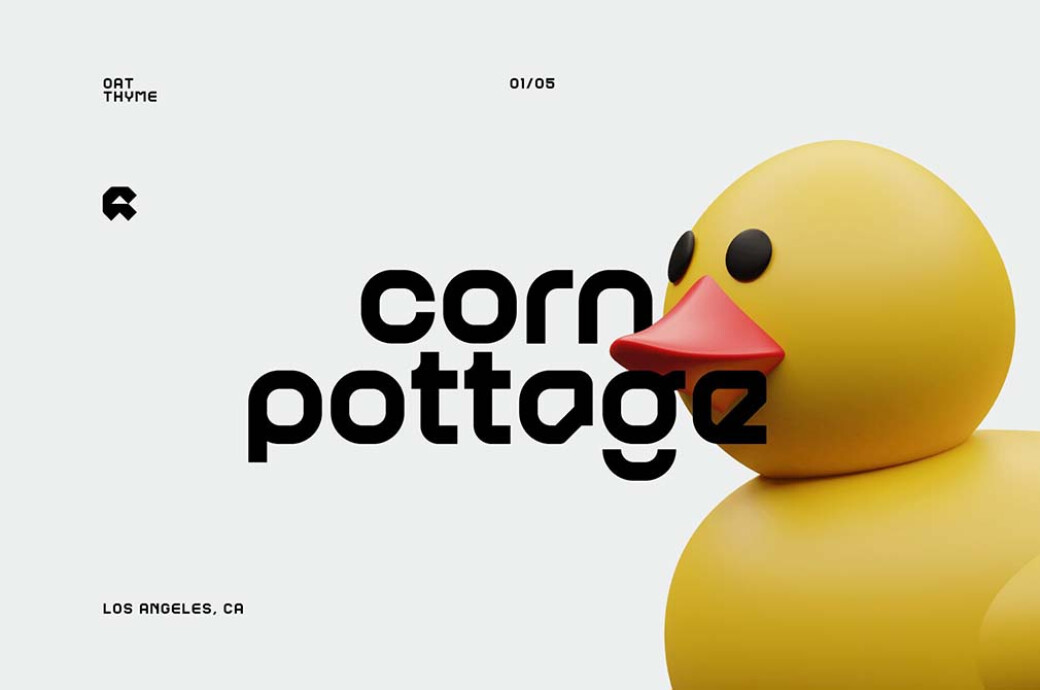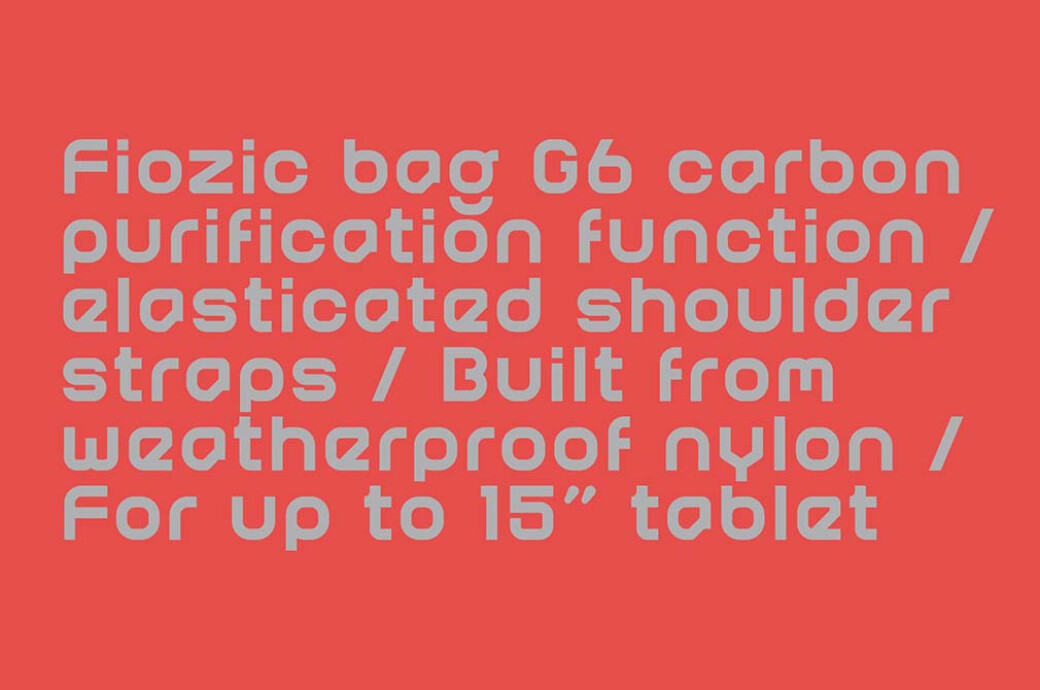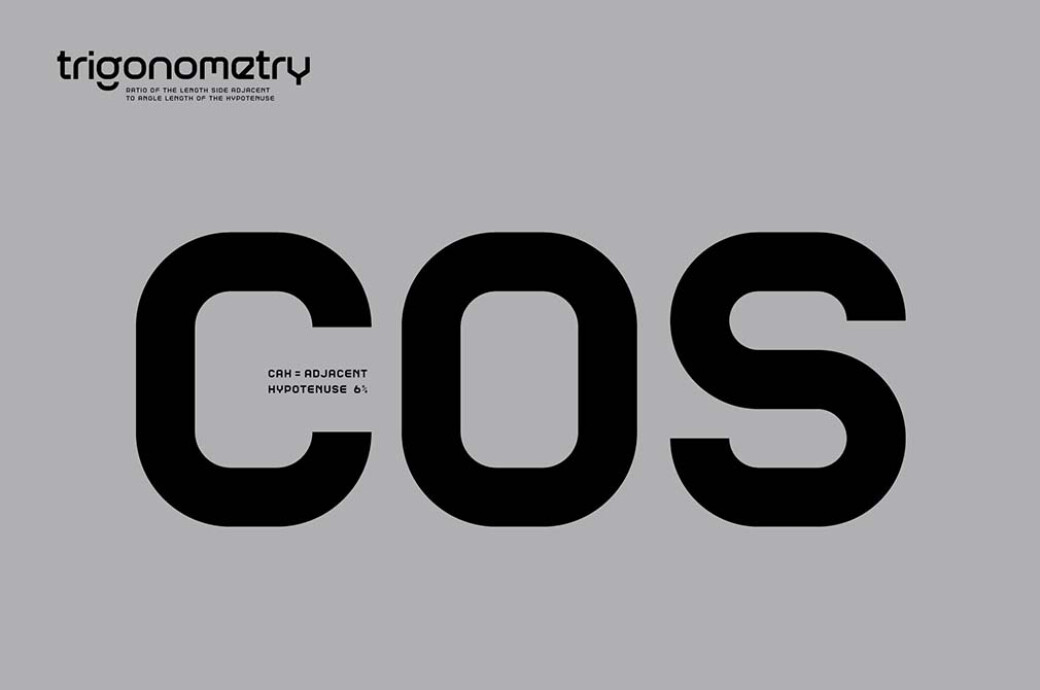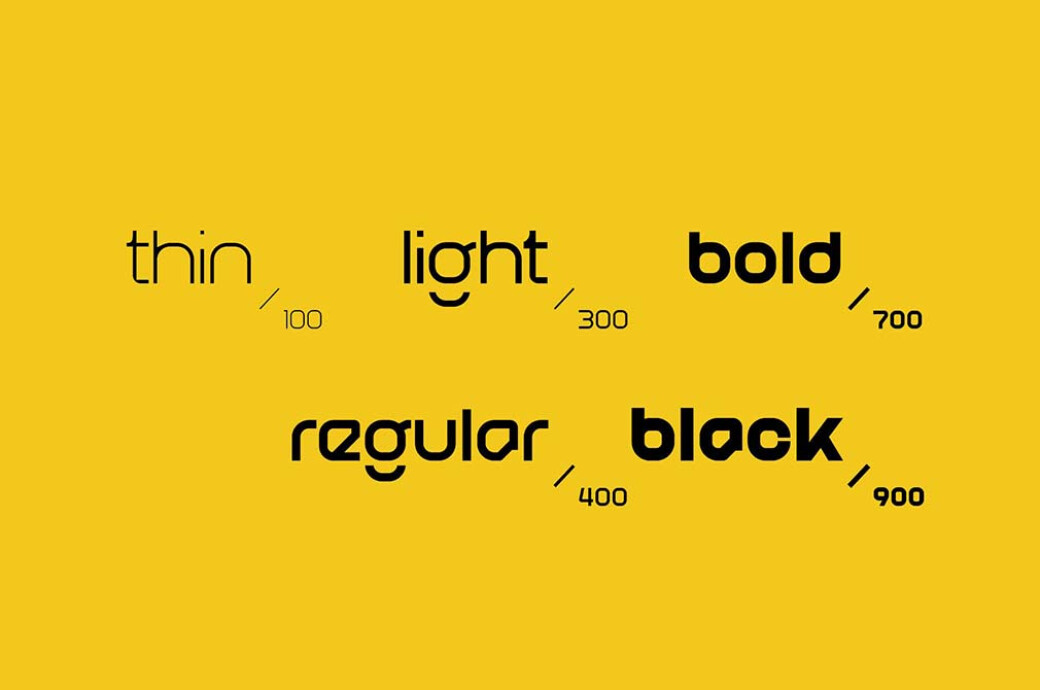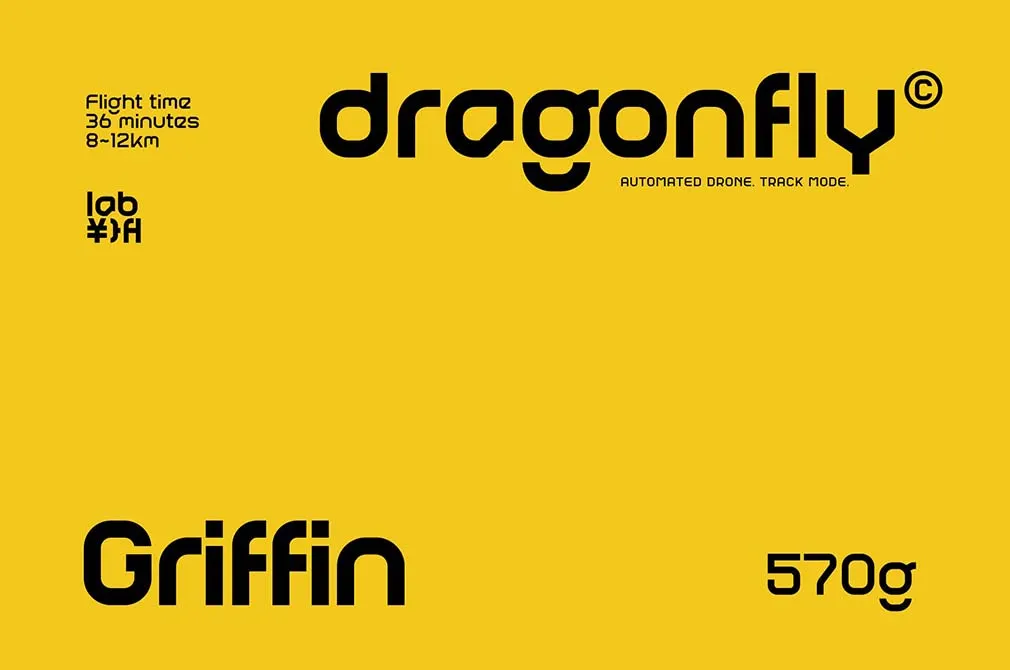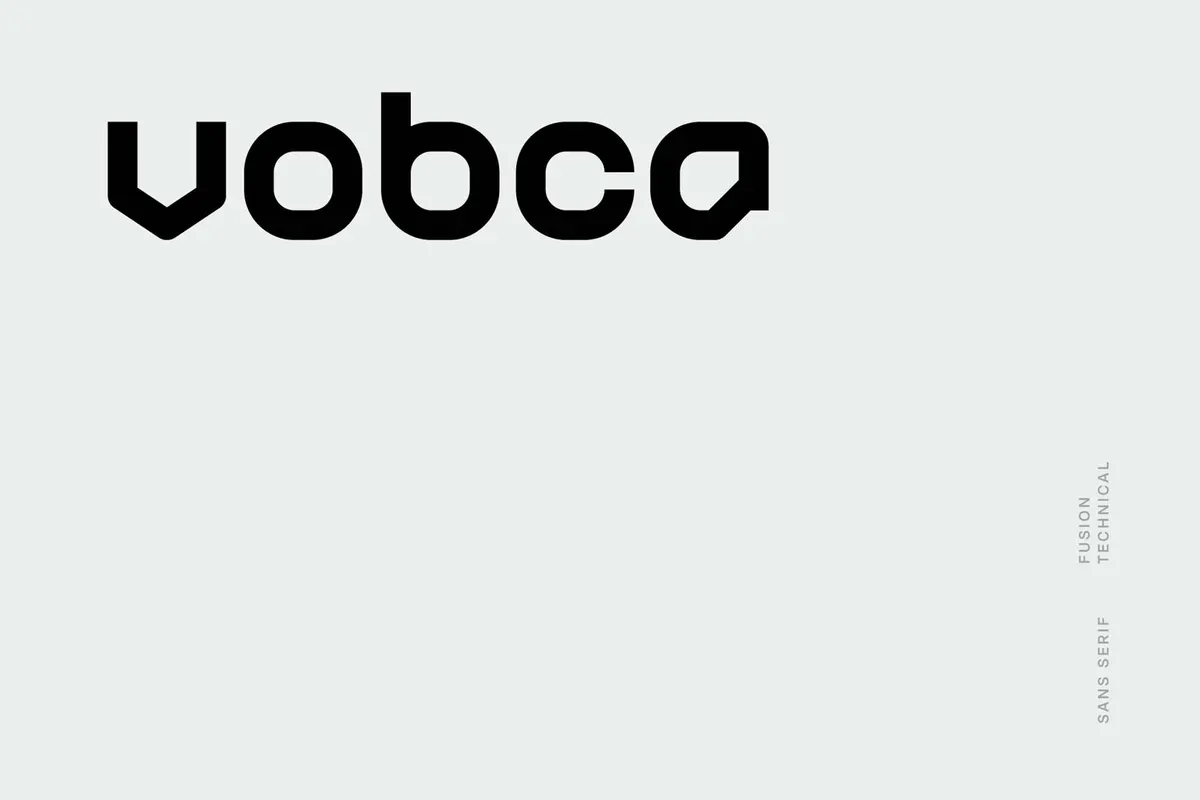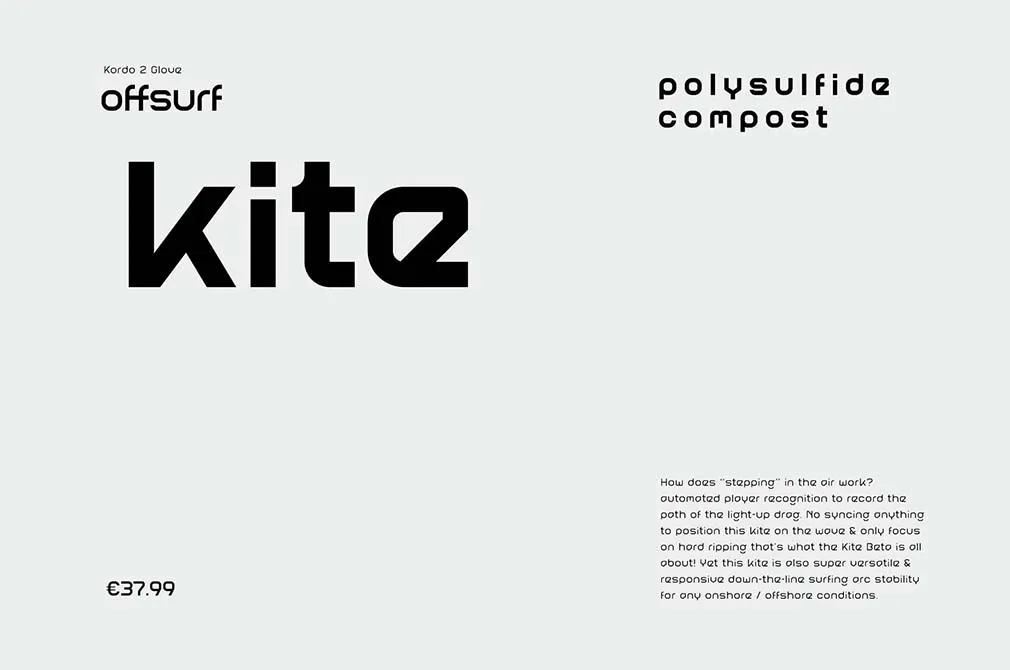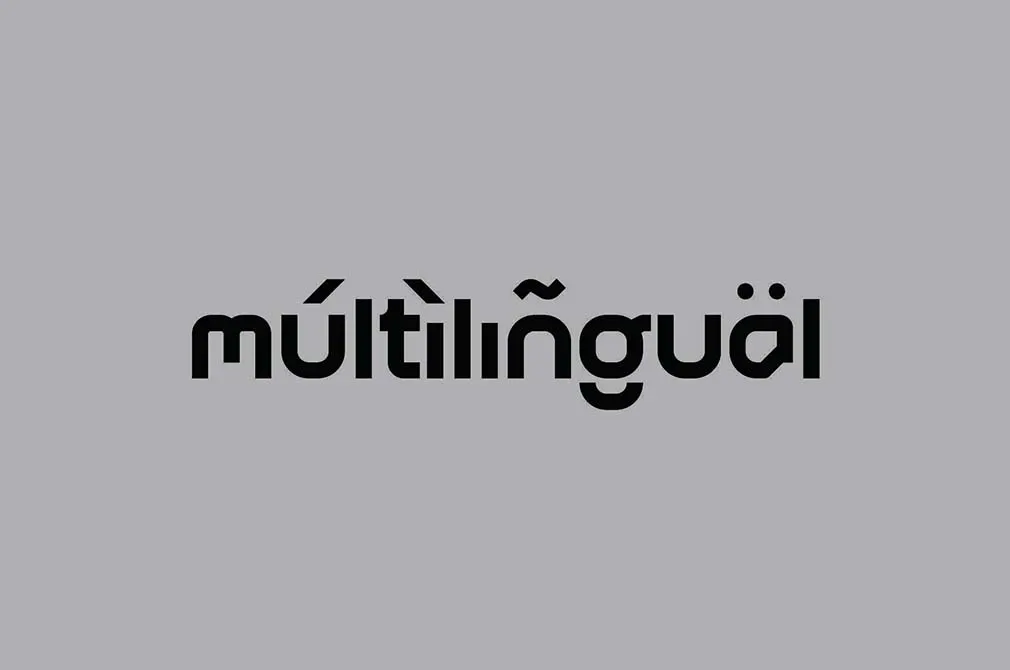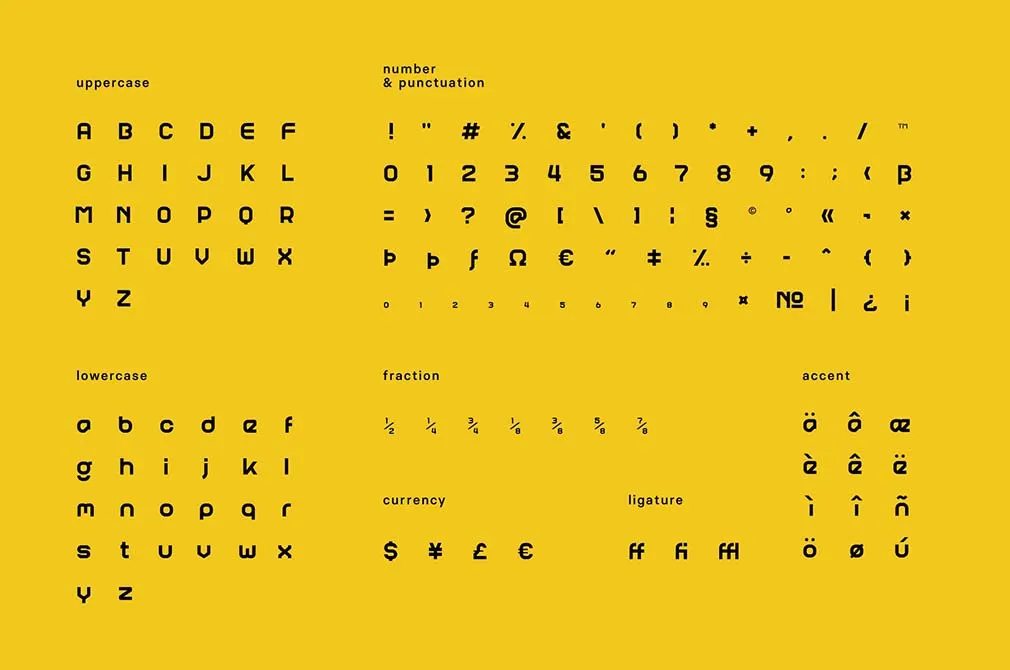
Vobca Font Family
Get yourself a sought-after minimalist font family, inspired by 1990s-2000s street culture.Vobca is a dynamic linear sans font family perfect for headlines, editorials, branding, packaging, printed materials, and typographic applications. It's available in three styles: light, regular, and bold. The set includes 240+ glyphs**(upper** and lowercases, punctuation, numbers, international characters) with ligatures and fractions provided in OpenType .otf and .woff format.